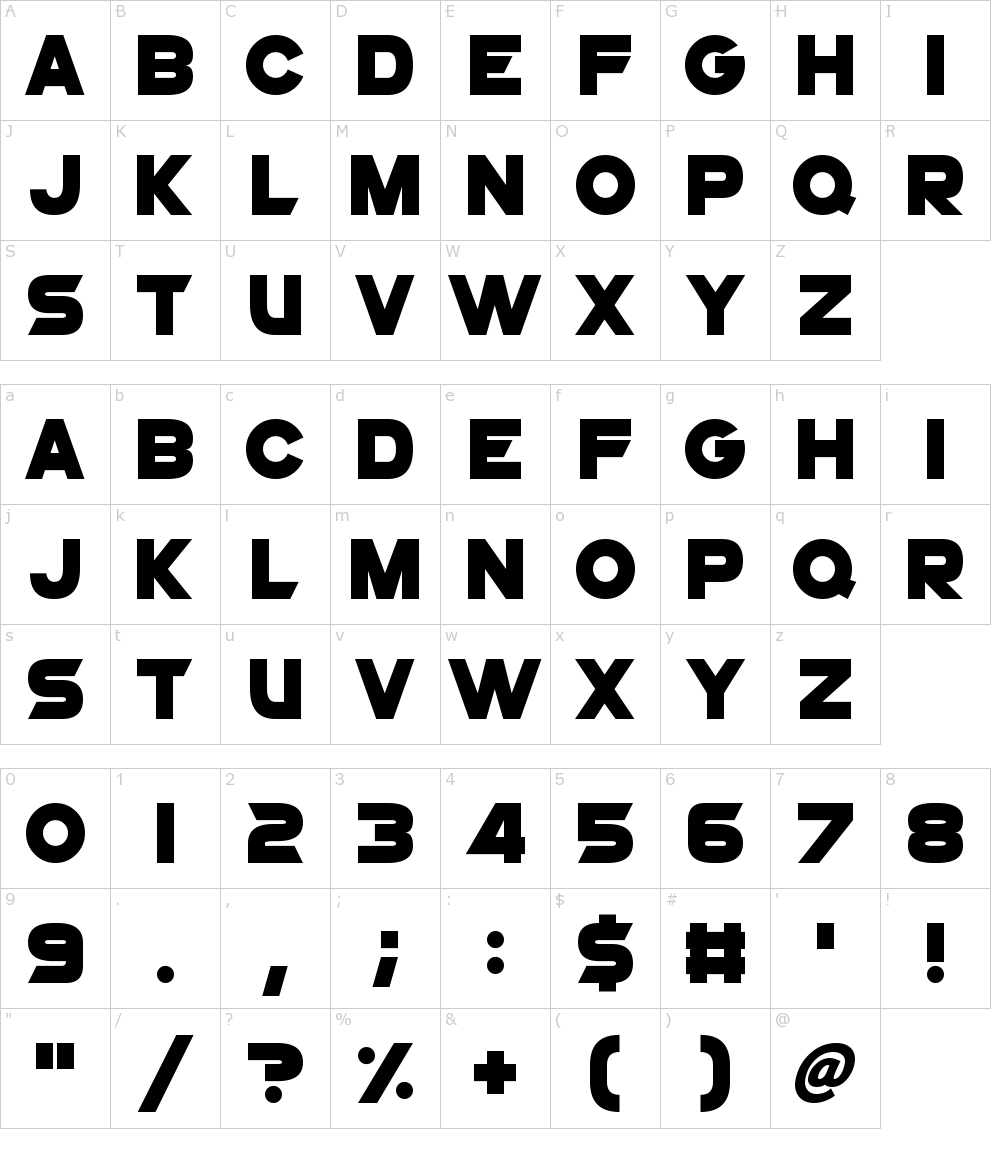
X Files Font Generator
The title sequence won the show its first emmy award, which was for outstanding graphic design and title sequences. Font generator online takes a normal text and change every word to its lookalike special character, you can read. F1 2 0 identity 655.
The Font Is Called Franklin Gothic With A Black Shadow Behind It, Slightly Tweaked, But Barely Noticable.